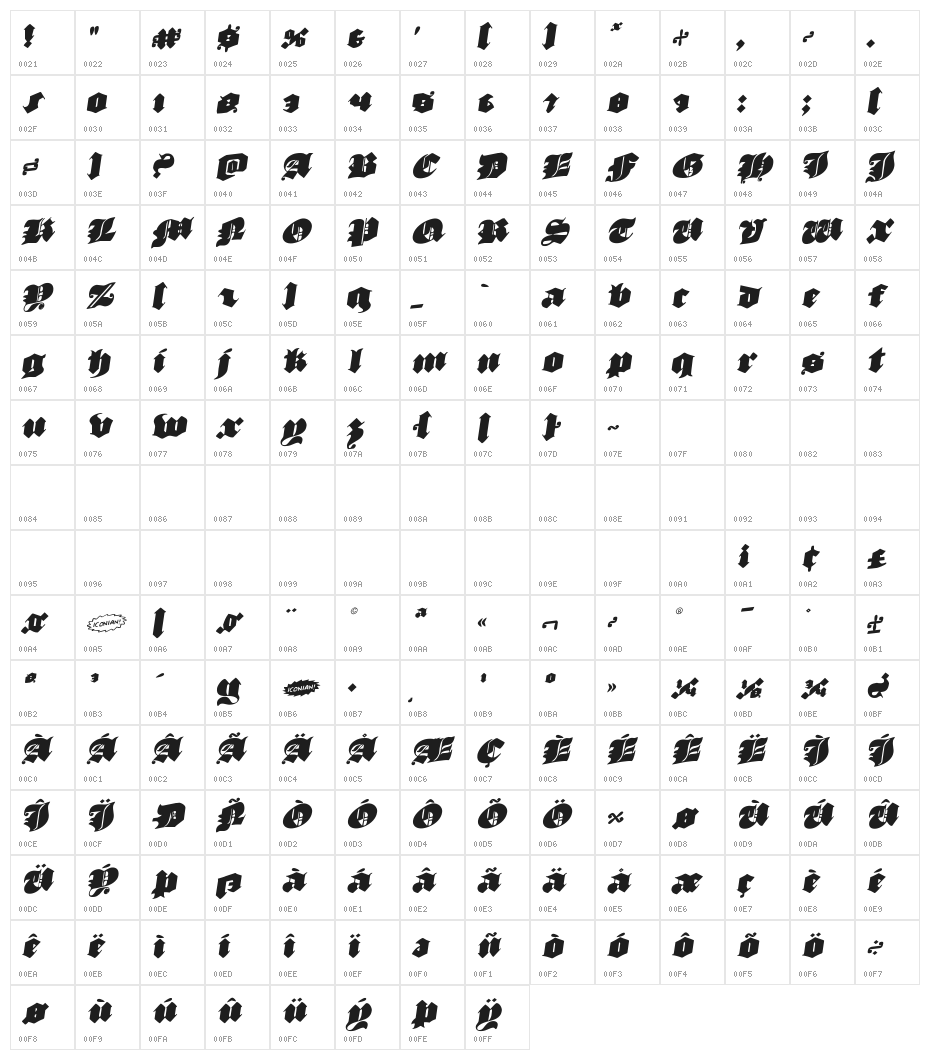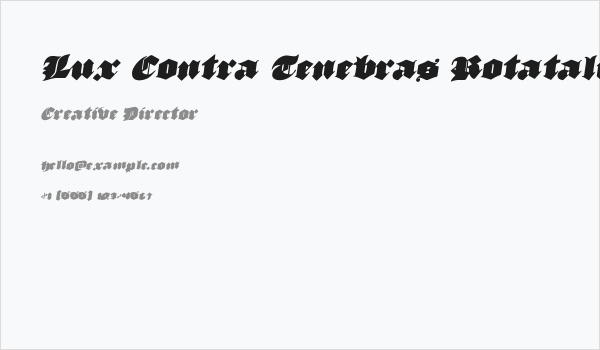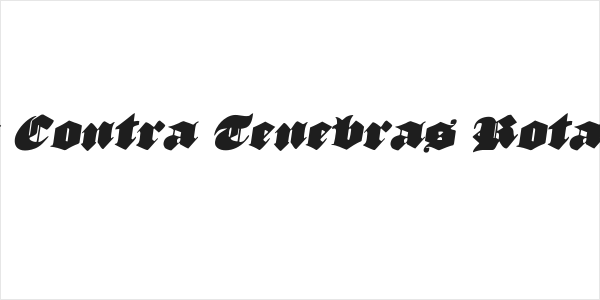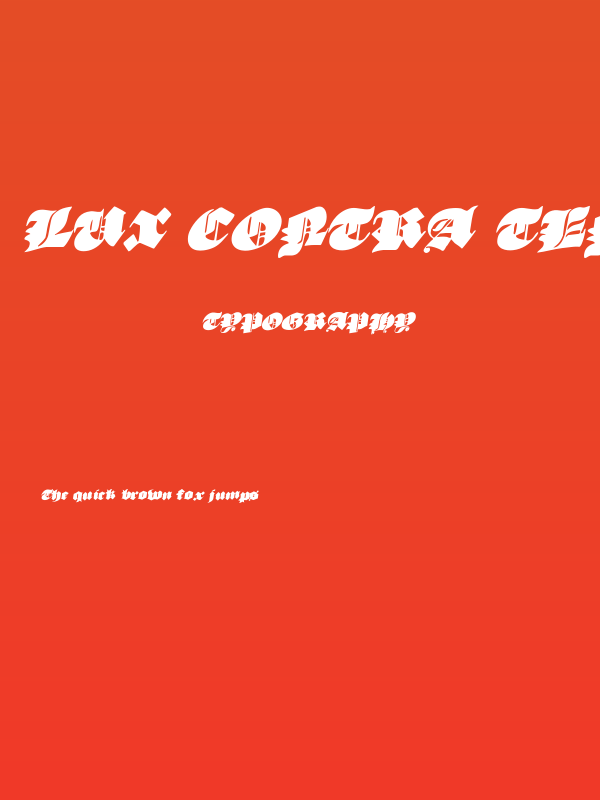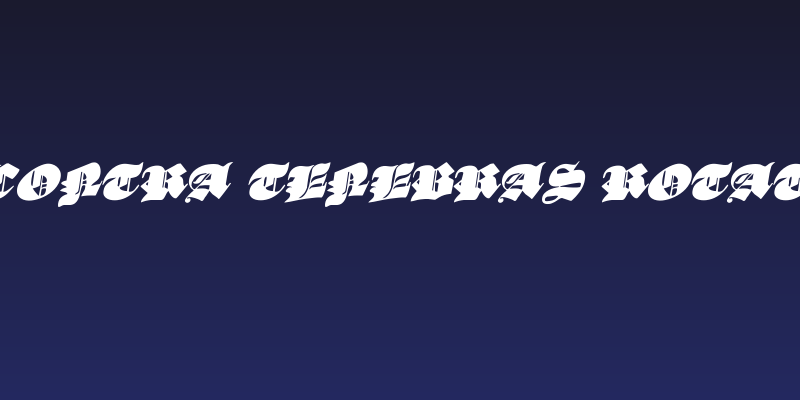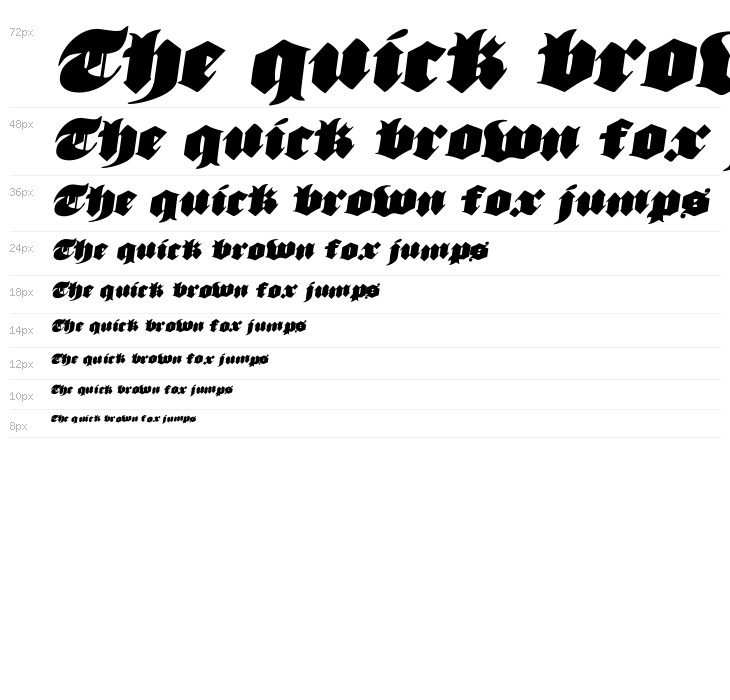
Lux Contra Tenebras Rotatalic Font
Lux Contra Tenebras Rotatalic Description
This font exhibits a bold and dramatic style, characterized by its intricate and ornate design. The letterforms are reminiscent of traditional blackletter scripts, featuring sharp angles and elaborate flourishes. The uppercase letters are particularly striking, with their complex shapes and decorative elements. The lowercase letters maintain the same level of detail, ensuring consistency throughout the typeface. The numerals and special characters are equally bold and stylized, making them stand out. This font is designed to capture attention and convey a sense of historical elegance and authority.
| Use Case | Logos, Headlines, Decorative purposes |
| Proposed Projects | Ideal for use in branding, posters, book covers, and any project requiring a historical or gothic aesthetic. |